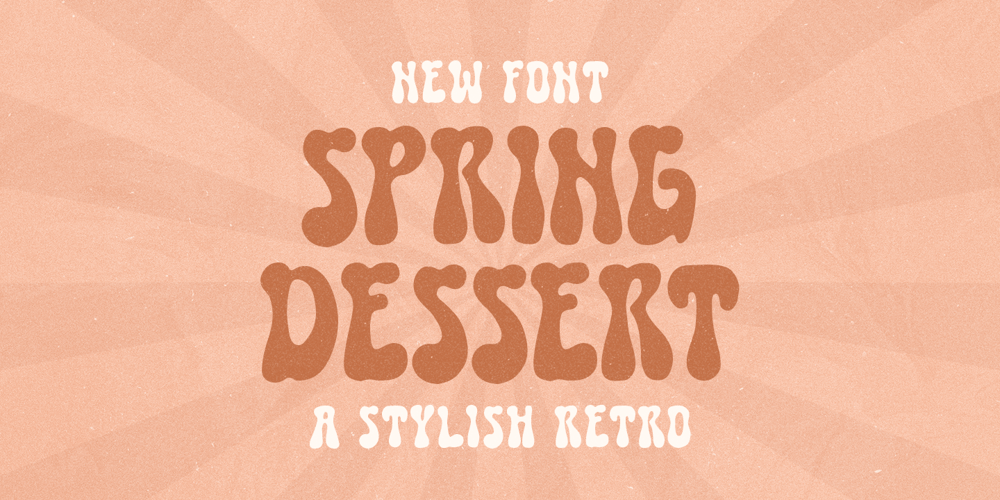
Spring Dessert Font Family was designed by Hendry Juanda and published by Letterhend. Spring Dessert contains 1 styles and family package options. Spring Dessert is stylish retro font with bubbly touch.This font perfectly made to be applied especially in logo, and the other various formal forms such as invitations, labels, logos, magazines, books, greeting / wedding cards, packaging, fashion, make up, stationery, novels, labels or any type of advertising purpose.Features : uppercase & lowercase numbers and punctuation multilingual ligatures alternates PUA encoded We highly recommend using a program that supports OpenType features and Glyphs panels like many of Adobe apps and Corel Draw, so you can see and access all Glyph variations.